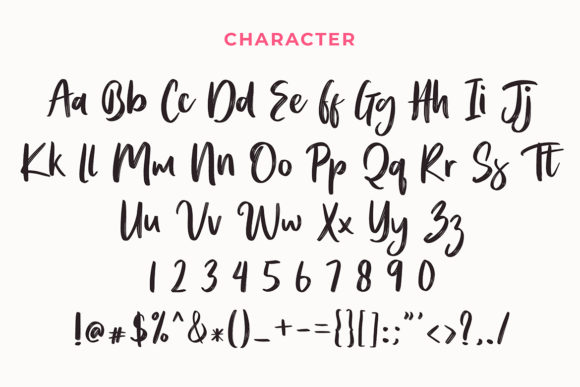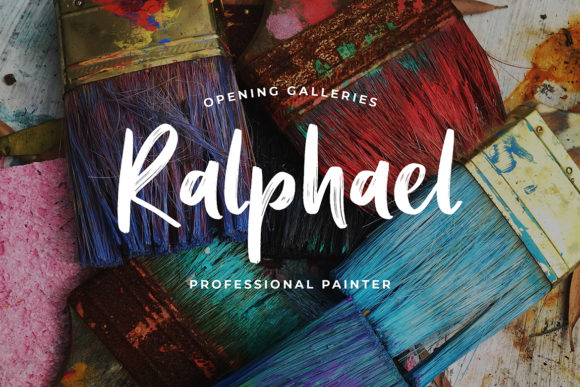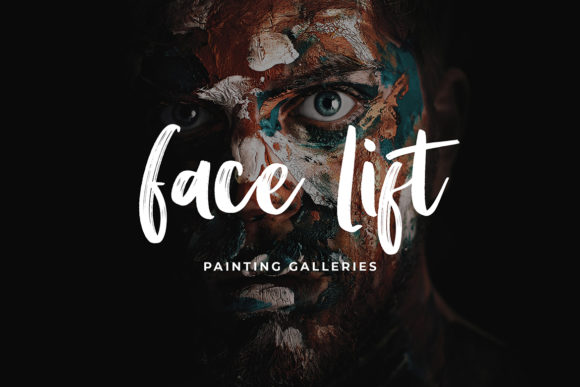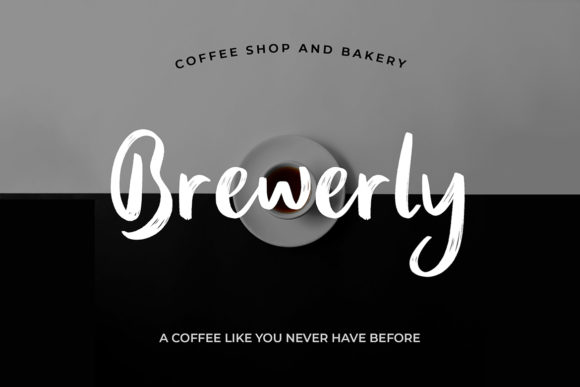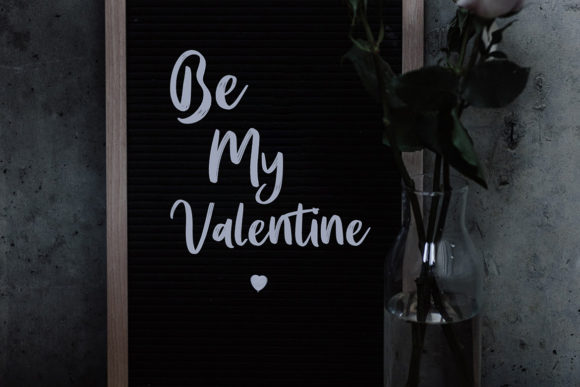
Introduction to Hugost Font
You know that moment when you’re working on a creative project and everything just comes together? The colors, the shapes, the text – it all feels like magic. But what if you had the perfect font to elevate your design to the next level? That’s where Hugost Font comes in – a high-quality, one-of-a-kind script that’s sure to make your design stand out.
As a designer, you’re always on the lookout for the perfect design resource to bring your vision to life. With Hugost Font, you’ll have the freedom to create with a transparent background, making it perfect for any creative project. And the best part? It’s available for free download, so you can start experimenting right away.
Key Features of Hugost Font
- Transparent background allowing for seamless integration with graphics
- Unique characteristics include its modern, minimalist aesthetic and extensive character set
- Perfect for use in logos, branding, and other design elements where a clean and sophisticated look is desired
Honest Review: Hugost Font
As a designer, I’m always on the lookout for high-quality design resources to elevate my creative projects. The Hugost Font is one such find that caught my attention. In this review, I’ll share my honest thoughts on this font.
- ✨ Beautiful, modern design that’s perfect for contemporary projects
- ✨ Transparent background, making it easy to layer with other design elements
- ⚠️ Limited character set, which may be a concern for designers working on longer texts
- ⚠️ Not ideal for small text sizes, as it can become blurry
Overall, I’m impressed with the Hugost Font’s clean design and versatility. While it may not be perfect for every project, it’s a great addition to any designer’s toolkit. With a bit of creative experimentation, you can unlock its full potential and elevate your designs to the next level.
Hugost Font: A High Quality Design Resource
The Hugost Font is a versatile and high quality design resource that can be used for a variety of creative projects. Its transparent background and clean design make it an ideal choice for designers looking to add a touch of sophistication to their work.
Tips for Getting the Most Out of Hugost Font
To get the most out of the Hugost Font, use it in combination with other design elements, such as images and graphics. You can also experiment with different font sizes and styles to create a unique look.
The Hugost Font is ideal for use in a variety of creative projects, including logos, social media graphics, presentations, and documents. It is also a great choice for designers looking to create a consistent brand identity.
The Hugost Font is designed to be scalable, making it suitable for a wide range of resolutions. However, for optimal results, we recommend using a resolution of 300 DPI or higher when using the font in your design project. This will ensure that the font appears crisp and clear, even when enlarged or used in high-resolution prints.